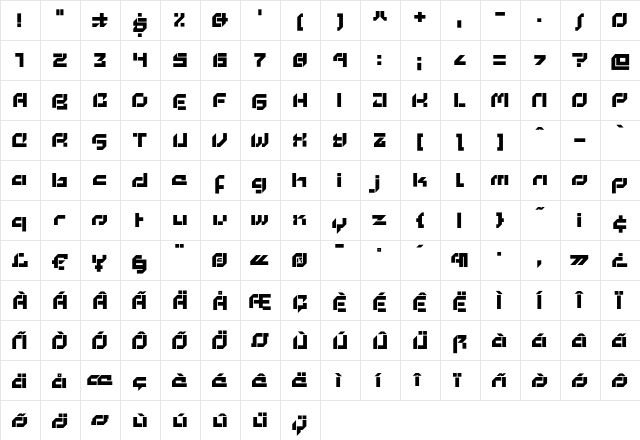
Cyberwar Defense Font Preview
Cyberwar Defense
Cyberwar Defense Font Details
Design Context for Cyberwar Typeface
Cyberwar channels digital-age aesthetics through its sharp, structured letterforms — ideal for brands that want to signal innovation.
Pro Tip: Try Cyberwar with generous letter-spacing in UI labels and navigation — the geometric forms benefit from room to breathe.